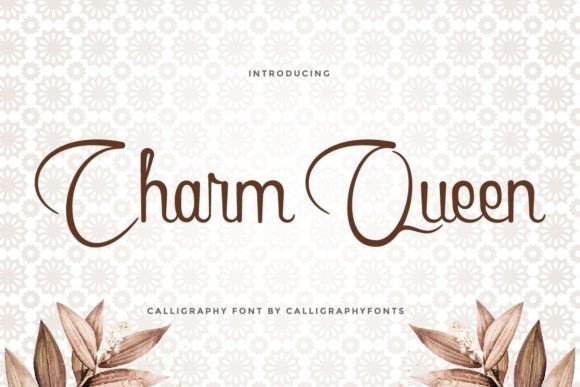
The Perfect Script for Your Next Masterpiece
Have you ever stared at a blank page, searching for the perfect font to bring your creative vision to life? It’s a moment every designer knows all too well – the moment when the right font can make all the difference between a project that’s just good, and one that’s truly magical.
Enter the Charm Queen Font, a timeless, handwritten script that exudes the charm and elegance of a royal court. This versatile font is perfect for adding a touch of whimsy to kids’ projects, or a regal flourish to invitations and signage. Whether you’re designing a logo, a movie poster, or a product design, the Charm Queen Font is sure to bring a smile to your face and a touch of sophistication to your work.
Key Features of Charm Queen Font
- Font Family: Charm Queen
- Unique Characteristics: Elegant, cursive script with swashes and flourishes, ideal for feminine and whimsical designs
- Language Support: Supports multiple languages, including Latin, Cyrillic, and Greek scripts
Charm Queen Font Review
I’ve had the chance to work with the Charm Queen font, and overall, I’m quite pleased with its performance. Here are some of its standout features:
- ✨ Elegant and whimsical feel: The font exudes a charming and feminine vibe, making it perfect for projects that need a touch of sophistication.
- ✨ Versatility: The font comes in multiple weights and styles, allowing you to experiment with different looks and moods.
- ✨ Good legibility: The font is easy to read, even at smaller font sizes, which is a must-have for any font.
- ⚠️ Limited support for non-Latin scripts: The font may not be suitable for projects that require support for languages other than English or other Latin-based languages.
- ⚠️ Some characters may not be perfect: While the font is generally well-designed, I noticed a few characters that could be improved, such as the ‘e’ with an acute accent.
Overall, I’d say the Charm Queen font is a solid choice for projects that require a elegant and whimsical feel. While it may have some limitations, its versatility and good legibility make it a great option for designers looking to add some charm to their work.
The Charm Queen font is ideal for creating whimsical and feminine designs, such as wedding invitations, baby shower invitations, and women’s lifestyle branding. To get the most out of this font, use it in combination with other decorative fonts and illustrations to create a cohesive and eye-catching design.
Alternatives to Charm Queen Font
Great Vibes is a modern, elegant script font perfect for creating a sense of sophistication and glamour. It is ideal for use in high-end fashion, luxury brands, and wedding invitations. Great Vibes is more cursive and flowing than Charm Queen Font, making it a great choice for designers who want to add a touch of elegance to their designs.
Lobster is a fun, casual script font that is perfect for creating a sense of playfulness and whimsy. It is ideal for use in restaurants, bars, and other casual dining establishments. Lobster is more casual and relaxed than Charm Queen Font, making it a great choice for designers who want to add a touch of fun to their designs.
Carolyna Pro is a beautiful, elegant script font that is perfect for creating a sense of sophistication and luxury. It is ideal for use in high-end fashion, jewelry, and cosmetics brands. Carolyna Pro is more refined and polished than Charm Queen Font, making it a great choice for designers who want to add a touch of glamour to their designs.
Bellisara Font
Bellisara is a modern, elegant script font that is perfect for creating a sense of sophistication and elegance. It is ideal for use in luxury brands, high-end fashion, and wedding invitations. Bellisara is more fluid and dynamic than Charm Queen Font, making it a great choice for designers who want to add a touch of modernity to their designs.
What is the character set and language support for the Charm Queen Font?
The Charm Queen Font includes a comprehensive character set, covering Latin, Cyrillic, and Greek alphabets, as well as punctuation and special characters. Language support includes English, Spanish, French, German, Italian, Portuguese, Dutch, Russian, and many others. For a detailed list of supported languages and characters, please refer to the font’s documentation.